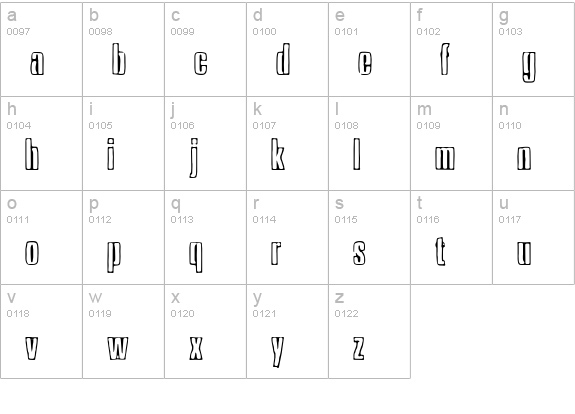
Ink Tank BRK font is a stunning typeface that exudes an artistic and edgy vibe. Its unique design combines bold strokes and intricate details, creating a visually captivating visual experience. This font is perfect for projects that require a touch of creativity and originality. What makes Ink Tank BRK font even more appealing is that it is available for free! Yes, you heard it right. This font can be freely downloaded at FontsMarket.com, allowing you to access its beauty without any cost. Now, you can enhance your designs with this remarkable typeface without worrying about breaking the bank. With its versatility and eye-catching appeal, Ink Tank BRK font is suitable for a wide range of projects. Whether you're designing logos, posters, invitations, or websites, this font will add a touch of sophistication and uniqueness to your work. Its bold and striking appearance guarantees that your message will be conveyed with confidence and impact. The attention to detail in Ink Tank BRK font is simply unparalleled. Each character is meticulously crafted, showcasing the dedication and skill of its creator. The result is a font that is not only visually appealing but also highly legible, ensuring that your audience can effortlessly read and understand your message. Don't miss out on the opportunity to elevate your designs with the remarkable Ink Tank BRK font. Download it for free at FontsMarket.com and let your creativity soar. Whether you're a professional designer or a typography enthusiast, this font is a must-have in your collection. Embrace the beauty of Ink Tank BRK font and watch your designs come to life with its captivating charm.